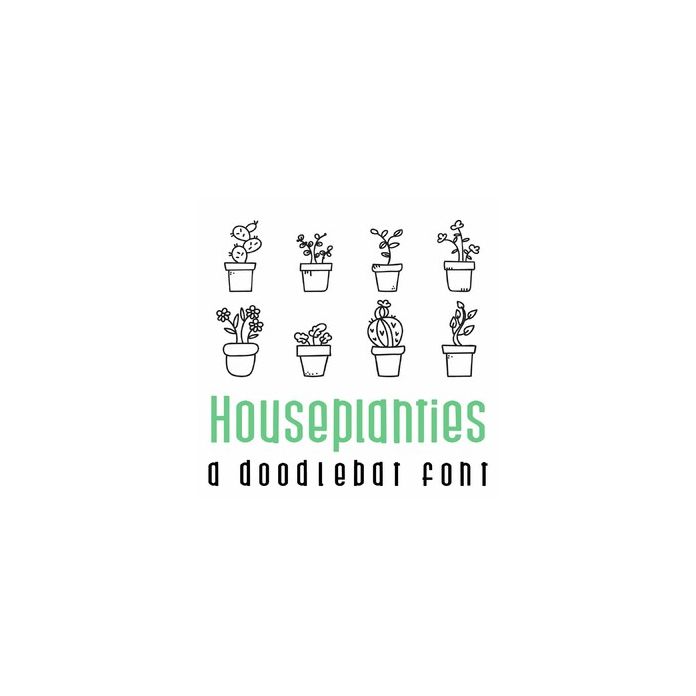
Houseplanties Doodlebat Font
This fun doodlebat font features 26 doodle style house plants. Perfect for cards, crafts, gifts, decor, scrap book pages, planner stickers and more!